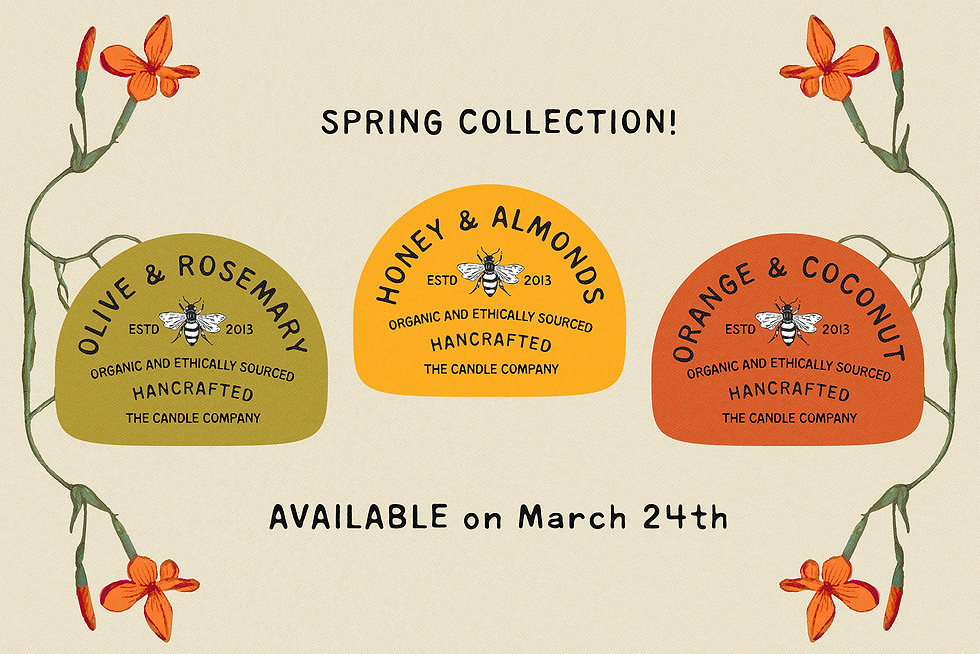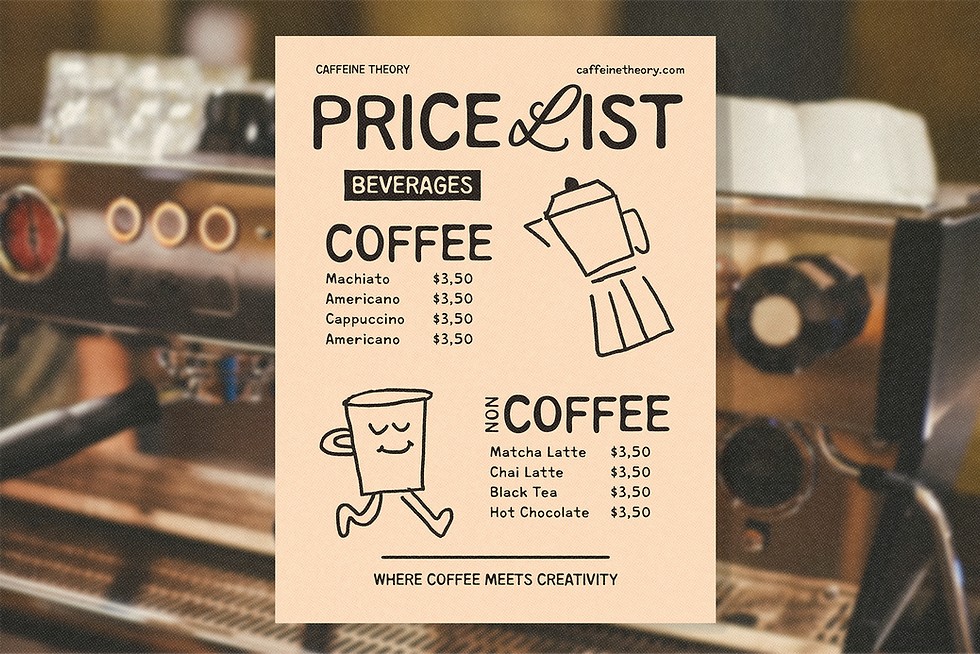
THE GOLDEN THREAD
The Golden Thread is a hand-crafted Sans Serif font with a subtle irregular twist. Designed to look clean yet playful, this font brings a fresh, dynamic touch to your projects without being too bold or overwhelming. Its simplicity and balance make it a versatile choice—great for both modern and vintage-inspired designs.
Use it for quotes, branding, stickers, packaging, social media graphics, logos, merch, and more. Whether you're aiming for a sleek minimalist look or something with a touch of handmade charm, The Golden Thread has you covered!
✷ The Golden Thread also includes 2 alternate characters (O and o) to give your designs a custom and special touch!